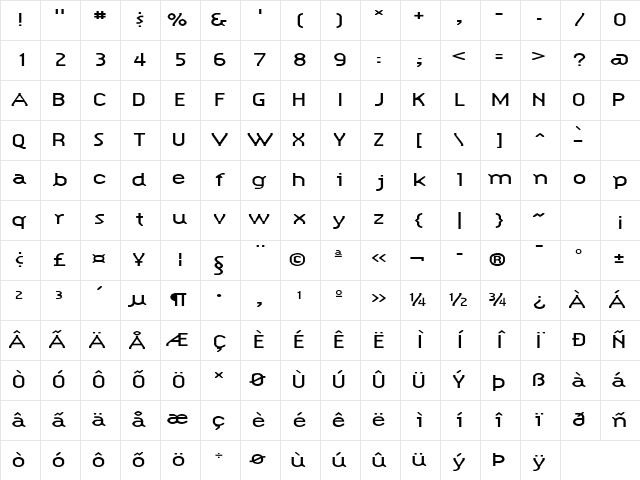
HypeStyleExtended Regular
Design Context for HypeStyleExtended
HypeStyleExtended is a composed and adaptable typeface that performs quietly and consistently across a wide range of design contexts.
Pro Tip: Use HypeStyleExtended in both headline and body roles to test its range before committing to a single application.